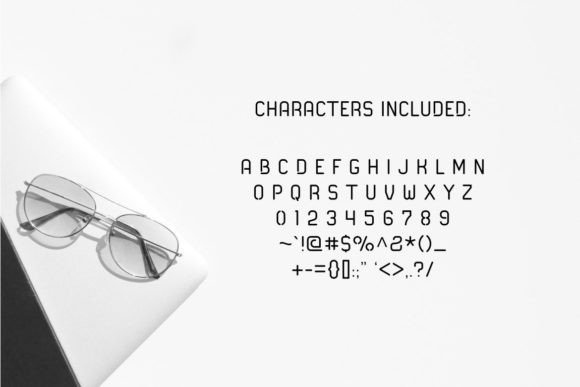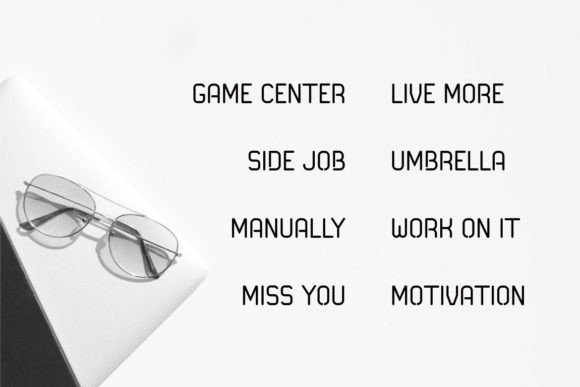
The Perfect Match for Your Creative Projects
Have you ever stared at a blank canvas, trying to find the perfect combination of words and visuals to bring your idea to life? We’ve all been there, and it’s a moment that can be both exhilarating and overwhelming. But what if we told you that the key to unlocking your creative potential lies in the right font?
Enter the Aqila Font, a clean and modern all-caps display font designed to elevate your projects and leave a lasting impression. With its perfect balance of thickness and width, Aqila Font adds a touch of sophistication to any design, making it the perfect companion for your next creative venture. Whether you’re a seasoned designer or just starting out, Aqila Font is a valuable addition to your toolkit, offering endless possibilities for expression and innovation.
Aqila Font Key Features
- Font Size: The font comes in 4 different font sizes, including Extra Light, Light, Regular, and Bold, allowing designers to choose the perfect weight for their project.
- Resolution: Aqila Font is designed to be highly legible at various resolutions, including 72 dpi, 144 dpi, and 300 dpi, making it ideal for digital and print applications.
- Unique Characteristics: Aqila Font features a unique blend of modern and traditional design elements, with clean lines, geometric shapes, and subtle flourishes that set it apart from other sans-serif fonts.
- Kerning and Ligatures: Aqila Font includes advanced kerning and ligature tables, ensuring that letters and letter combinations are displayed with precision and beauty, even at small font sizes.
Aqila Font Review
I recently had the chance to work with Aqila Font, and I must say it’s a solid choice for designers looking for a versatile sans-serif font.
- Legibility: Aqila Font is highly legible, making it perfect for body text and longer content blocks.
- Neutral Aesthetic: The font’s neutral design allows it to blend seamlessly with a wide range of color schemes and styles.
- Responsive: Aqila Font adapts well to different screen sizes and resolutions, ensuring a consistent reading experience.
- Lack of Expressiveness: While Aqila Font is neutral, it may lack the emotional impact of more expressive fonts.
- Limited Versatility: The font’s simplicity may make it less suitable for creative or artistic projects that require a more dynamic feel.
Overall, Aqila Font is a reliable choice for designers who value simplicity and versatility. It may not be the most exciting font, but it gets the job done. If you’re looking for a solid sans-serif font that’s easy to work with, Aqila Font is definitely worth considering.
Aqila Font Practical Application Guide
For the best results, use the Aqila Font in conjunction with a clean and simple design aesthetic. Experiment with different font sizes and styles to create visual interest. You can also use the Aqila Font in combination with other fonts to create a unique and eye-catching design.
The Aqila Font is well-suited for:
- Logos and branding materials.